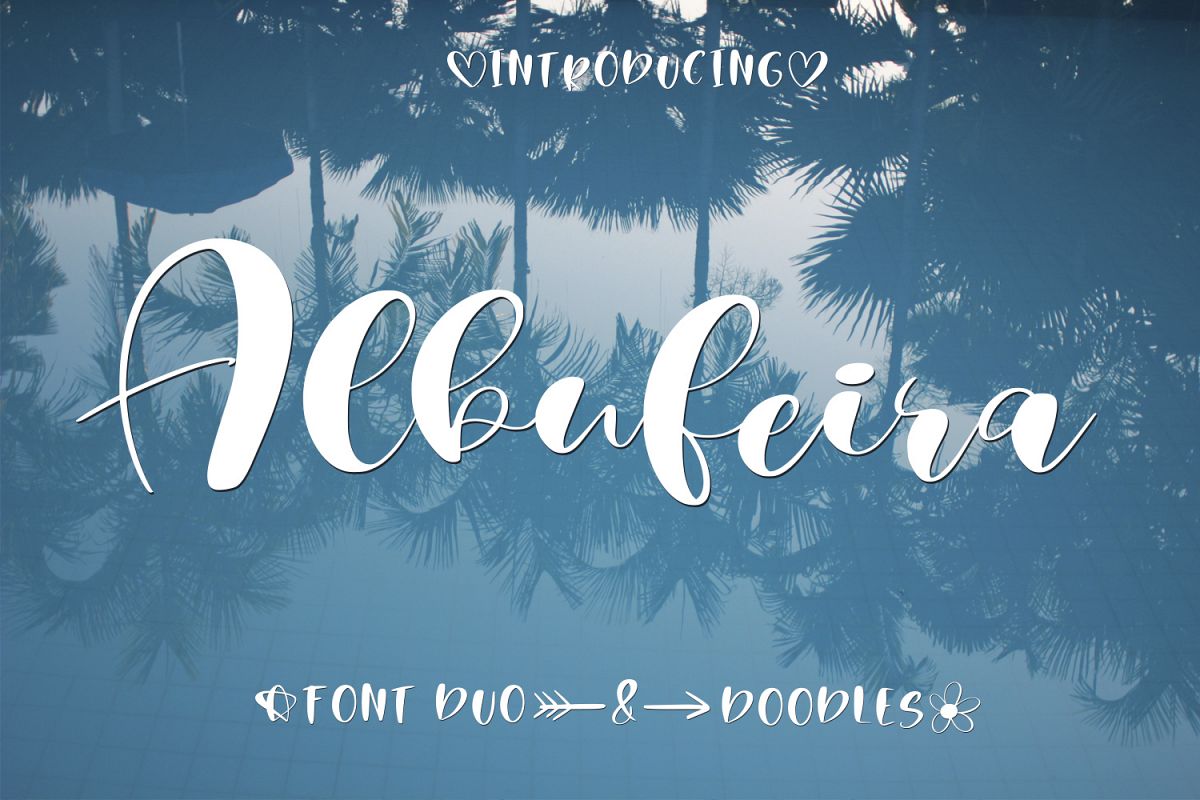
Albufeira Font Duo & Doodles - it'a a cute handwritten font duo with doodles Albufeira Font Duo & Doodles.otf - standart and alternate uppercase, lowercase, numbers, punctuation and ligature Albufeira Font Duo & DoodlesST.ttf - standart uppercase, lowercase, numbers, punctuation Albufeira Font Duo & DoodlesAl.otf - alternate uppercase and lowercase AlbufeiraFontDuo-SansSerif.otf - uppercase, lowercase, numbers, punctuation AlbufeiraFontDuo-SansSerif.ttf - uppercase, lowercase, numbers, punctuation AlbufeiraFontDuo-Doodle.otf - doodles (A-Z. a-z ) AlbufeiraFontDuo-Doodle.ttf - doodles (A-Z. a-z )